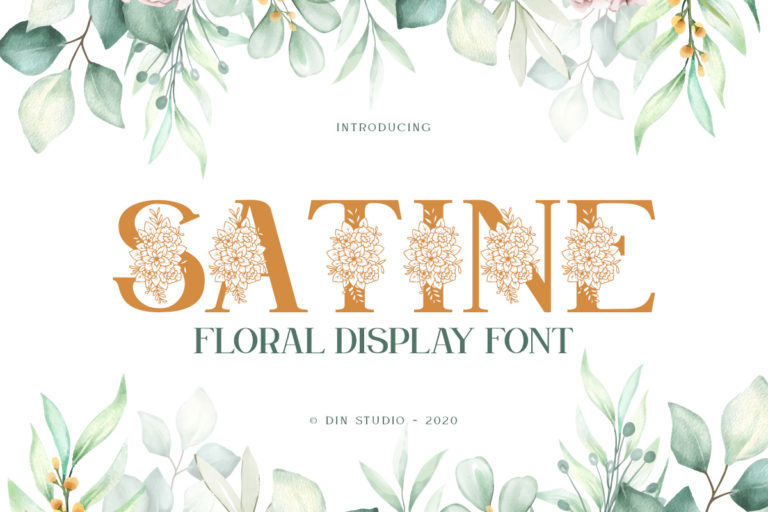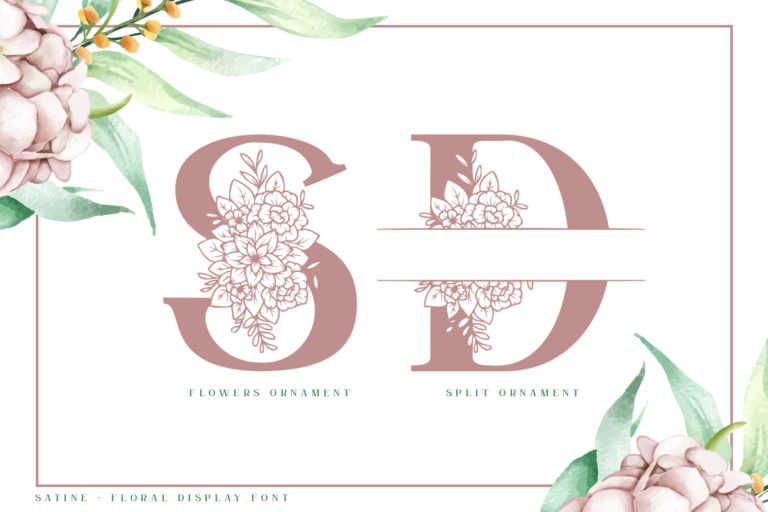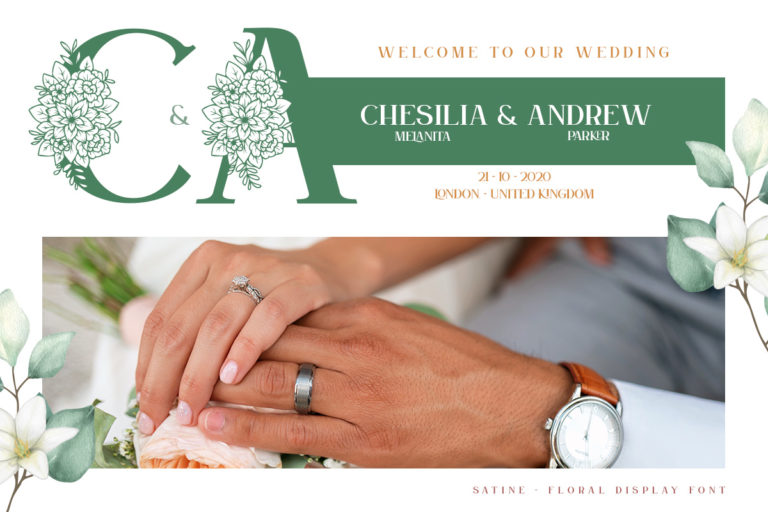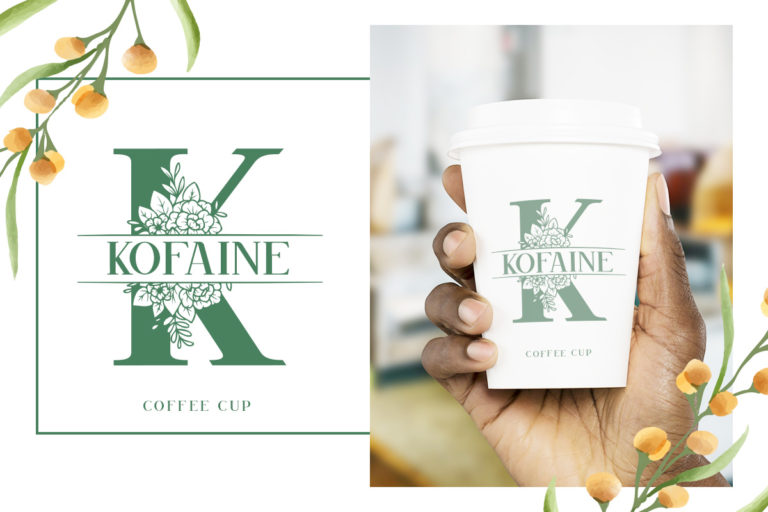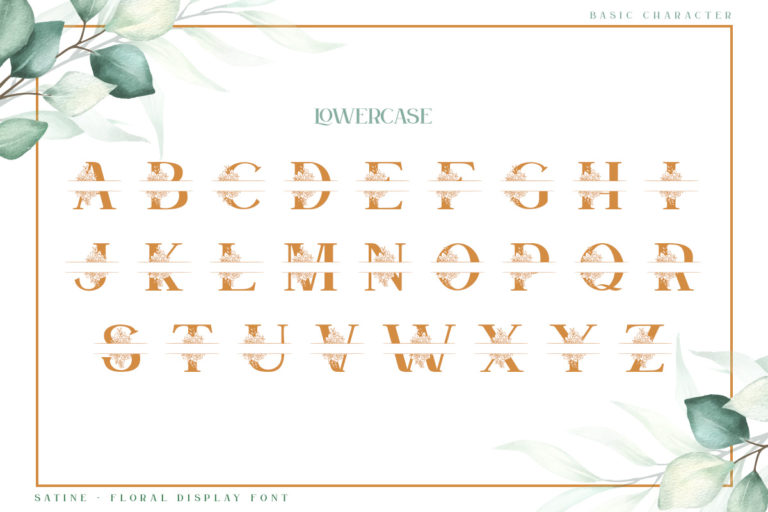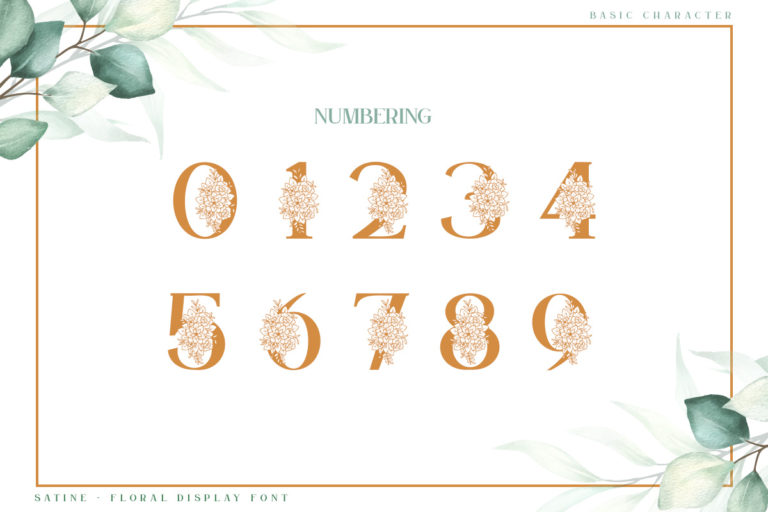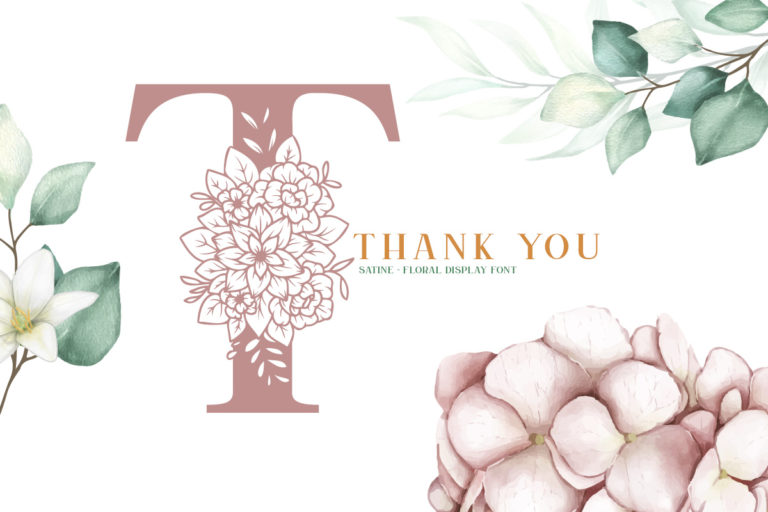
Satine – Floral Display Font
Satine
Satine is a beautifully decorated font featuring elegant flowers. Get inspired by its authentic feel and use it to create gorgeous wedding invitations, lovely stationery art, eye-catching social media posts, and cute greeting cards. See the previews above to get some inspiration on how you can use them. Happy designing!